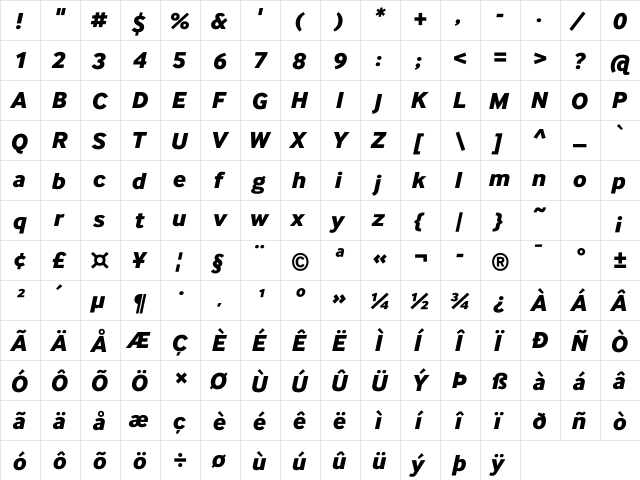
InterFace DaMa Lt Bold Italic Font Preview
Design Context for InterFace DaMa Lt Typeface
InterFace DaMa Lt offers clean, dependable letterforms without strong stylistic allegiance, making it a practical choice for designers who need flexibility. The dynamic lean of this cut emphasises speed and emphasis in any layout. The heavy weight commands attention and anchors typographic hierarchies.
Pro Tip: Try InterFace DaMa Lt for annotation and caption copy alongside an upright companion — the contrast in angle creates a dynamic but ordered typographic system.